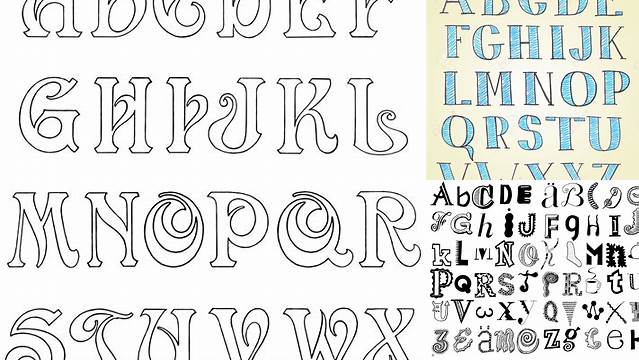
Draw Letter Fonts: Styles, Techniques & Unique Designs
Hey guys! Ever found yourself staring blankly at a piece of paper, wondering how to make your lettering pop? Or maybe you're working on a cool design project and need that perfect font to tie it all together? Well, you've come to the right place! This guide is all about letter font styles to draw, and we're going to dive deep into the wonderful world of typography. We'll explore different font categories, techniques, and even some tips for developing your own unique style. So, grab your pens, pencils, or styluses, and let's get started!
Exploring Different Font Categories
When we talk about letter font styles, we're really talking about a vast and diverse landscape. Think of it like a giant library filled with books of all shapes and sizes – each font has its own personality and purpose. To make things easier to navigate, we can break down fonts into several major categories, each with its distinctive characteristics. Understanding these categories is crucial because it allows you to choose the most appropriate font for your specific project, ensuring your message is conveyed effectively and aesthetically.
Serif Fonts: The Timeless Classics
Serif fonts are often considered the traditional workhorses of the typography world. The key defining feature of a serif font is the presence of small decorative strokes, or “serifs,” that extend from the main strokes of the letters. These serifs create a sense of formality, elegance, and readability, making serif fonts ideal for applications that require a touch of sophistication. Think of classic books, newspapers, and formal documents – serif fonts are the go-to choice in these scenarios. Some popular examples of serif fonts include Times New Roman, Garamond, and Georgia. Times New Roman, for instance, is renowned for its readability and has been a staple in publishing for decades. Garamond, with its elegant and refined letterforms, is a favorite for books and fine printing. Georgia, designed specifically for on-screen readability, is a versatile choice for both print and digital media. When drawing serif fonts, pay close attention to the serifs themselves – the shape, size, and placement of these small details can significantly impact the overall look and feel of your lettering. Experiment with different serif styles, from the bracketed serifs of Times New Roman to the hairline serifs of Didot, to understand how they contribute to the font's character. Practicing these nuances is essential for mastering the art of drawing serif fonts and utilizing them effectively in your projects. In essence, serif fonts bring a sense of history and tradition to your work, making them perfect for projects that aim for a classic and timeless appeal.
Sans-Serif Fonts: Modern and Minimalist
On the other end of the spectrum, we have sans-serif fonts. The term “sans-serif” literally means “without serifs” in French, and that’s exactly what distinguishes these fonts. Sans-serif fonts have clean, simple lines, lacking the decorative strokes found in serif fonts. This gives them a modern, minimalist, and often more informal appearance. Sans-serif letter font styles are frequently used in headlines, websites, and other applications where clarity and readability are paramount, especially at smaller sizes. Helvetica, Arial, and Futura are some of the most well-known sans-serif fonts. Helvetica, with its neutral and versatile design, is a favorite for corporate branding and signage. Arial, a widely used system font, offers excellent readability on screens. Futura, with its geometric shapes and clean lines, exudes a sense of modernity and sophistication. When drawing sans-serif fonts, the key is to focus on the uniformity of the strokes and the negative space between letters. The simplicity of these fonts can be deceiving – even slight inconsistencies can be quite noticeable. Pay attention to the letter proportions and the spacing to ensure your lettering looks balanced and harmonious. Sans-serif fonts are incredibly versatile, lending themselves well to a wide range of applications, from logos and branding to posters and digital designs. They communicate a sense of modernity and efficiency, making them an excellent choice for projects that need to feel contemporary and accessible. Mastering sans-serif fonts allows you to create lettering that is both visually appealing and highly functional.
Script Fonts: Elegant and Expressive
If you're looking to add a touch of personality and flair to your lettering, script fonts are the way to go. Script fonts mimic the flowing strokes of handwriting, creating a sense of elegance, expressiveness, and often, informality. These fonts come in a wide variety of styles, from formal calligraphic scripts to playful and casual handwritten fonts. They can add a personal touch to invitations, greeting cards, logos, and other projects where you want to convey a sense of warmth and creativity. Examples of popular script fonts include Brush Script, Pacifico, and Lobster. Brush Script, with its bold and dynamic strokes, has a retro feel. Pacifico, a flowing and friendly script, is perfect for adding a casual touch. Lobster, a bold and condensed script, works well for headlines and logos. Drawing script fonts can be challenging, as they often involve curved lines, varying stroke thicknesses, and intricate letter connections. The key is to practice the letterforms and focus on maintaining a consistent flow and rhythm. Pay attention to the way the letters connect and the overall balance of the word. Experiment with different pen angles and pressures to achieve the desired stroke variations. Script fonts are excellent for adding character and individuality to your designs. They can evoke a range of emotions, from elegance and romance to playfulness and spontaneity. When used effectively, script fonts can make your lettering truly stand out and leave a lasting impression. Letter font styles in script are great for any invitations or wedding projects.
Decorative Fonts: Unique and Eye-Catching
When you need a font that really makes a statement, decorative fonts are your best friend. Decorative fonts are designed to be attention-grabbing and visually striking. These fonts often incorporate unique design elements, such as elaborate serifs, unusual letter shapes, or graphic embellishments. Decorative fonts are perfect for headlines, posters, logos, and other applications where you want to create a strong visual impact. However, they are generally not suitable for body text, as their intricate designs can make them difficult to read in large blocks. There’s a vast array of decorative fonts available, ranging from vintage-inspired designs to futuristic and abstract styles. Some examples include Impact, Stencil, and various display fonts. Impact, with its bold and condensed letterforms, is ideal for headlines and posters. Stencil, with its cut-out letter shapes, has a unique and industrial feel. Display fonts, designed specifically for headlines and display use, often incorporate unique and expressive design elements. Drawing decorative fonts requires a keen eye for detail and a willingness to experiment with different styles and techniques. The key is to find a font that complements your overall design and effectively communicates your message. Pay attention to the font's personality and how it interacts with other elements in your composition. Decorative fonts can be a powerful tool for adding visual interest and creating a memorable design.
Techniques for Drawing Letter Font Styles
Now that we've explored the major font categories, let's get down to the nitty-gritty of drawing letter font styles. There are several techniques you can use to create beautiful and consistent lettering, whether you're working with traditional tools like pencils and pens or digital tools like tablets and styluses. Mastering these techniques will give you the skills and confidence to tackle any lettering project.
Grid Systems: The Foundation of Consistency
A grid system is a fundamental tool for any serious letterer. It provides a framework for creating consistent letter heights, widths, and spacing. By drawing your letters within a grid, you can ensure that your lettering looks balanced and harmonious. There are various types of grid systems you can use, depending on the font style and your personal preferences. A simple grid might consist of horizontal lines marking the baseline, x-height, cap height, and ascender/descender lines. More complex grids might include vertical lines to guide letter width and spacing. To use a grid system, start by drawing the grid lightly on your paper or canvas. Then, sketch your letters within the grid, using the grid lines as guides for letter proportions and placement. Once you're happy with the overall look of your lettering, you can go over your sketch with a pen or other outlining tool, and then erase the grid lines. Grid systems are particularly helpful when drawing fonts with consistent proportions, such as sans-serif fonts. They can also be used to create custom fonts or variations of existing fonts. By experimenting with different grid layouts and letter proportions, you can develop your own unique lettering style.
Guidelines and Construction Lines: Building Blocks of Letters
In addition to grid systems, guidelines and construction lines are essential for creating accurate and consistent letterforms. Guidelines are lines that indicate the key dimensions of a letter, such as the baseline, x-height, and cap height. Construction lines are lines that help you define the shapes and curves of the letterforms. For example, you might use circles and ovals to construct the rounded parts of letters, or straight lines to define the angles and strokes. To use guidelines and construction lines, start by drawing the guidelines for your letter height and placement. Then, use construction lines to sketch the basic shapes of the letters. Refine the shapes as needed, paying attention to the proportions and curves. Once you're happy with the overall shape of the letter, you can go over your sketch with a pen or other outlining tool. Guidelines and construction lines are particularly helpful when drawing complex or stylized fonts, such as script or decorative fonts. They can also be used to create variations of existing fonts or to develop your own unique letterforms. By mastering the use of guidelines and construction lines, you can create lettering that is both accurate and expressive.
Stroke Weight and Contrast: Adding Visual Interest
The stroke weight and contrast of your letters can significantly impact their visual appeal. Stroke weight refers to the thickness of the lines that make up the letters. Contrast refers to the variation in stroke weight within a single letter or word. By varying the stroke weight and contrast, you can create lettering that is more dynamic and visually interesting. For example, you might use a thicker stroke weight for the downstrokes of a letter and a thinner stroke weight for the upstrokes. Or, you might create contrast by using a bold font for headlines and a lighter font for body text. To experiment with stroke weight and contrast, try using different pens or brushes with varying tip sizes. You can also use pressure to control the stroke weight of your lines. When drawing letters with varying stroke weights, pay attention to the overall balance and harmony of the lettering. The stroke weight should complement the font style and the overall design. By mastering the art of stroke weight and contrast, you can create lettering that is both visually appealing and highly effective.
Spacing and Kerning: The Art of Harmony
Spacing and kerning are crucial elements of typography that often go unnoticed, but they play a significant role in the readability and aesthetic appeal of lettering. Spacing refers to the overall distance between letters and words, while kerning refers to the adjustment of space between individual pairs of letters. Proper spacing and kerning create a harmonious flow and ensure that the lettering is easy to read and visually pleasing. Poor spacing can lead to letters feeling crowded or too far apart, making the text look disjointed. To master spacing and kerning, it’s essential to develop a keen eye for detail and an understanding of how different letter combinations interact with each other. Start by establishing a consistent overall spacing between words, ensuring that there’s enough white space to distinguish them clearly. Then, focus on kerning specific letter pairs that might require adjustment. For instance, letter combinations like “AV” or “WA” often need closer spacing to prevent excessive gaps. Practice adjusting the spacing both visually and using digital tools to develop a sense of what looks balanced and harmonious. Attention to spacing and kerning elevates the professionalism and clarity of your letter font styles, making your lettering more engaging and effective.
Developing Your Own Unique Lettering Style
While it's important to learn and master existing font styles, the ultimate goal for many aspiring letterers is to develop their own unique style. This is where creativity, experimentation, and practice come into play. Developing your style takes time and effort, but it's a rewarding journey that allows you to express your personality and artistic vision through your lettering. Here are some tips to help you on your way:
Inspiration from Everywhere: Observe and Collect
The first step in developing your own lettering style is to gather inspiration from a wide variety of sources. Look at different fonts, lettering styles, and hand-lettered designs. Pay attention to the details that you find appealing, such as the letter shapes, stroke weights, and overall aesthetic. Collect examples of lettering that you admire, whether it's from books, magazines, websites, or even street signs. Create a mood board or a digital folder to organize your inspiration. Don't limit yourself to just typography – look at other forms of art and design, such as illustration, painting, and calligraphy. Nature, architecture, and everyday objects can also be sources of inspiration. The key is to observe the world around you and to be open to new ideas. By exposing yourself to a wide range of influences, you'll start to develop a sense of what you like and what you don't like, which will help you to define your own style.
Experimentation is Key: Try New Things
Once you've gathered some inspiration, it's time to start experimenting with different techniques and styles. Try drawing letters in different fonts, using different pens and brushes, and varying the stroke weight and contrast. Play with different letter shapes, proportions, and spacing. Don't be afraid to make mistakes – mistakes are often the best way to learn and discover new ideas. Experiment with combining different font styles or adding unique embellishments to your lettering. Try creating variations of existing fonts or developing your own completely new letterforms. The more you experiment, the more you'll discover your own preferences and strengths. Keep a sketchbook or a digital file to document your experiments. This will help you track your progress and identify patterns and trends in your work.
Practice, Practice: The Path to Mastery
Like any skill, lettering requires practice. The more you practice, the better you'll become at drawing letters consistently and expressively. Set aside time each day or week to practice your lettering. Start with the basics, such as drawing individual letters and words. Then, move on to more complex exercises, such as lettering phrases and quotes. Try copying existing fonts and lettering styles, and then experiment with variations. Practice different techniques, such as using a grid system, guidelines, and construction lines. The key is to be consistent and persistent. Don't get discouraged if you don't see results immediately. Keep practicing, and you'll gradually develop your skills and your own unique style.
Find Your Niche: What Makes You Unique?
As you experiment and practice, you'll start to discover what makes your lettering unique. Maybe you have a particular flair for drawing script fonts, or maybe you excel at creating bold and graphic lettering. Perhaps you have a distinctive way of adding embellishments or a unique approach to spacing and kerning. Whatever it is, embrace it and develop it further. Don't try to be someone else – focus on being yourself and expressing your own artistic vision. Your unique style is what will set you apart from other letterers and make your work stand out. Once you've identified your niche, you can focus on honing your skills in that area and building a portfolio that showcases your strengths. This will help you attract clients and opportunities that are a good fit for your style.
Seek Feedback and Community: Grow Together
Finally, don't be afraid to seek feedback from other letterers and designers. Share your work online or in person and ask for constructive criticism. Be open to hearing different perspectives and learning from others. Join a lettering community or forum, where you can connect with other artists, share your work, and get feedback. Surrounding yourself with a supportive community can be incredibly motivating and inspiring. You can also learn from the work of others and get new ideas and techniques. Collaboration can also be a valuable way to grow and develop your style. By working with other artists, you can push your creative boundaries and create something truly unique. Remember, developing your own lettering style is a journey, not a destination. It's a process of continuous learning, experimentation, and growth. Enjoy the process, and don't be afraid to take risks and try new things. With dedication and persistence, you can create lettering that is both beautiful and uniquely yours.
So there you have it, guys! A comprehensive guide to letter font styles to draw. We've explored different font categories, delved into essential techniques, and discussed how to develop your own unique style. Remember, lettering is a skill that takes time and practice to master, but it's also a hugely rewarding art form. Whether you're creating logos, designing posters, or simply adding a personal touch to your journal, understanding font styles and lettering techniques will empower you to express yourself creatively and effectively. So, grab your tools, get inspired, and start drawing! The world of lettering awaits, and your unique style is just waiting to be discovered. Happy lettering!